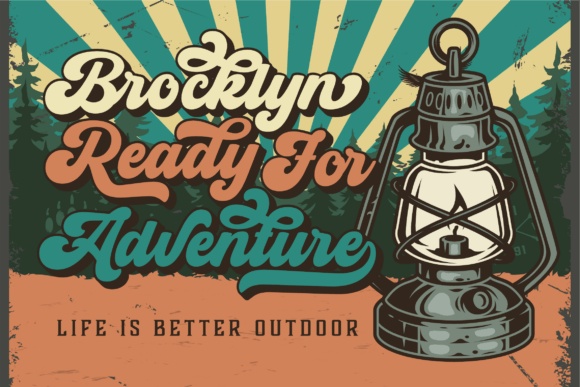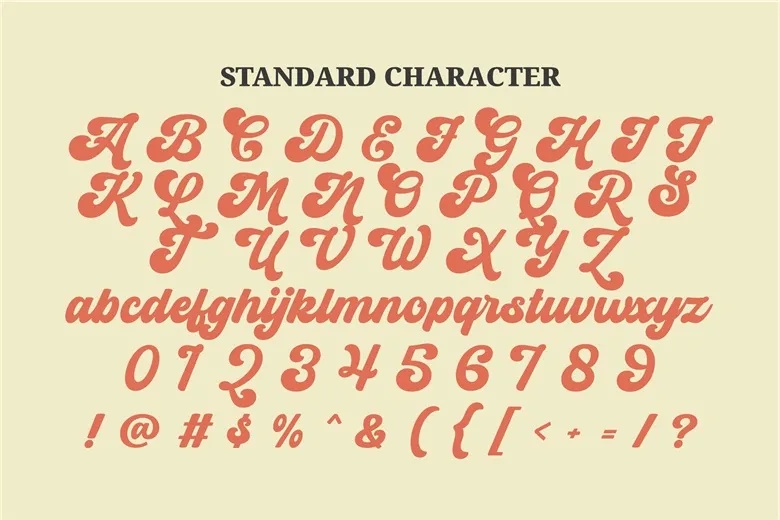
Headmain is a bold and dynamic layered script typeface with a retro feel. Its fluid curves and thick strokes give it a striking, energetic vibe, making it perfect for eye-catching headlines, branding, posters, and vintage-inspired designs. The font features multiple alternates and OpenType capabilities, offering versatility for creative projects and the possibility to craft unique, expressive typography.
The layered style adds depth and impact, making Headmain especially well-suited for designs that need a bold yet stylish statement. Additionally, the font supports multiple languages, ensuring its usability across a wide range of global projects.
Headmain Script Font